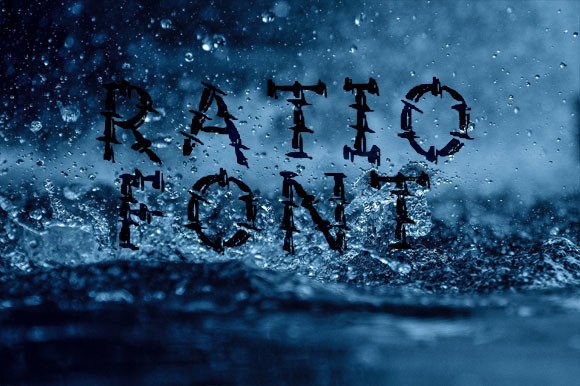
Introduction to Ratio Font
This unique decorative font is perfect for creative projects that need to look cool, modern, and impressive.
Key Features of Ratio Font
Why Choose Ratio Font?
Ratio Font offers exceptional quality and versatility, making it a valuable addition to your design toolkit. Whether you’re creating for personal projects or commercial use, Ratio Font delivers professional results.